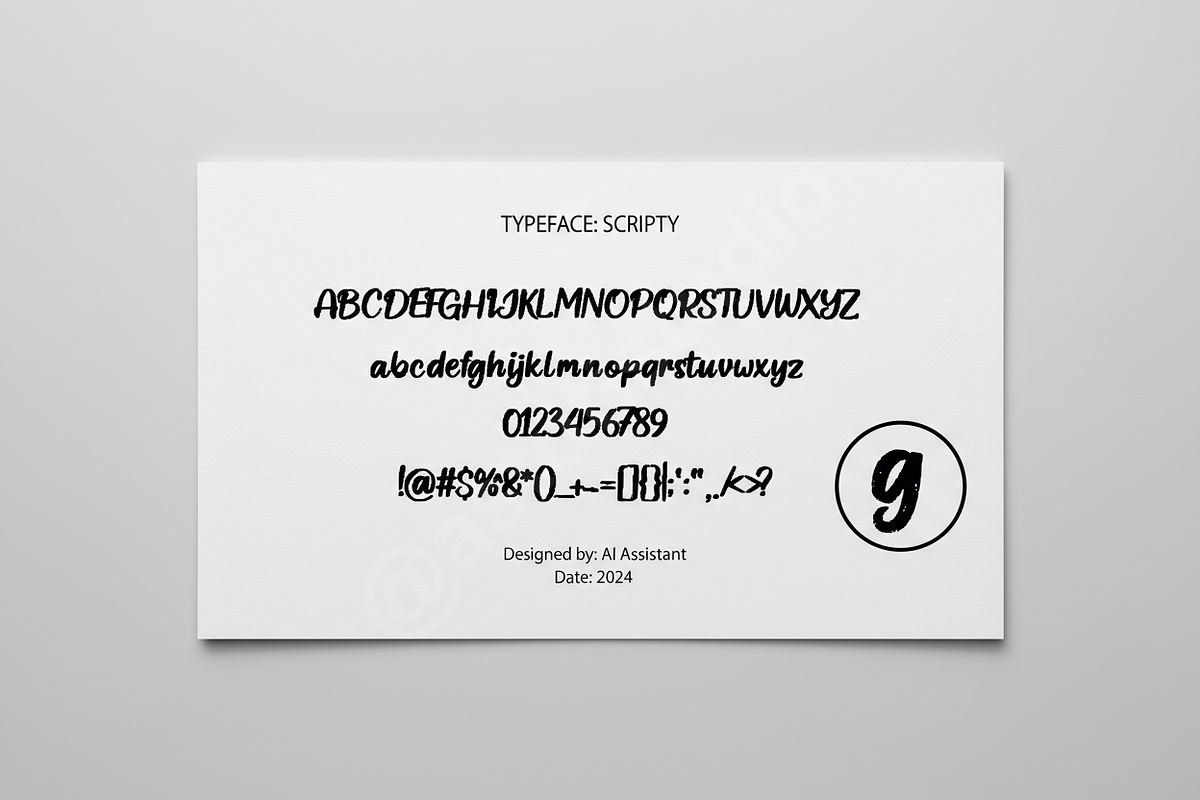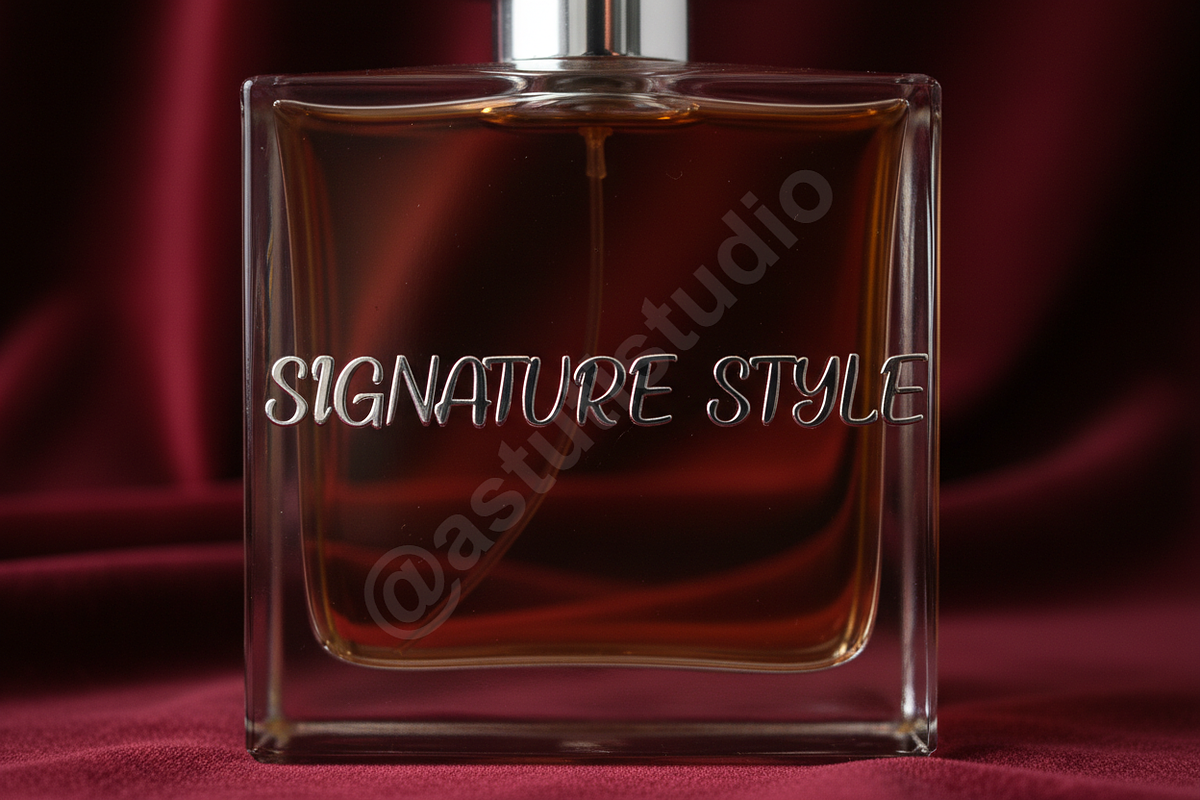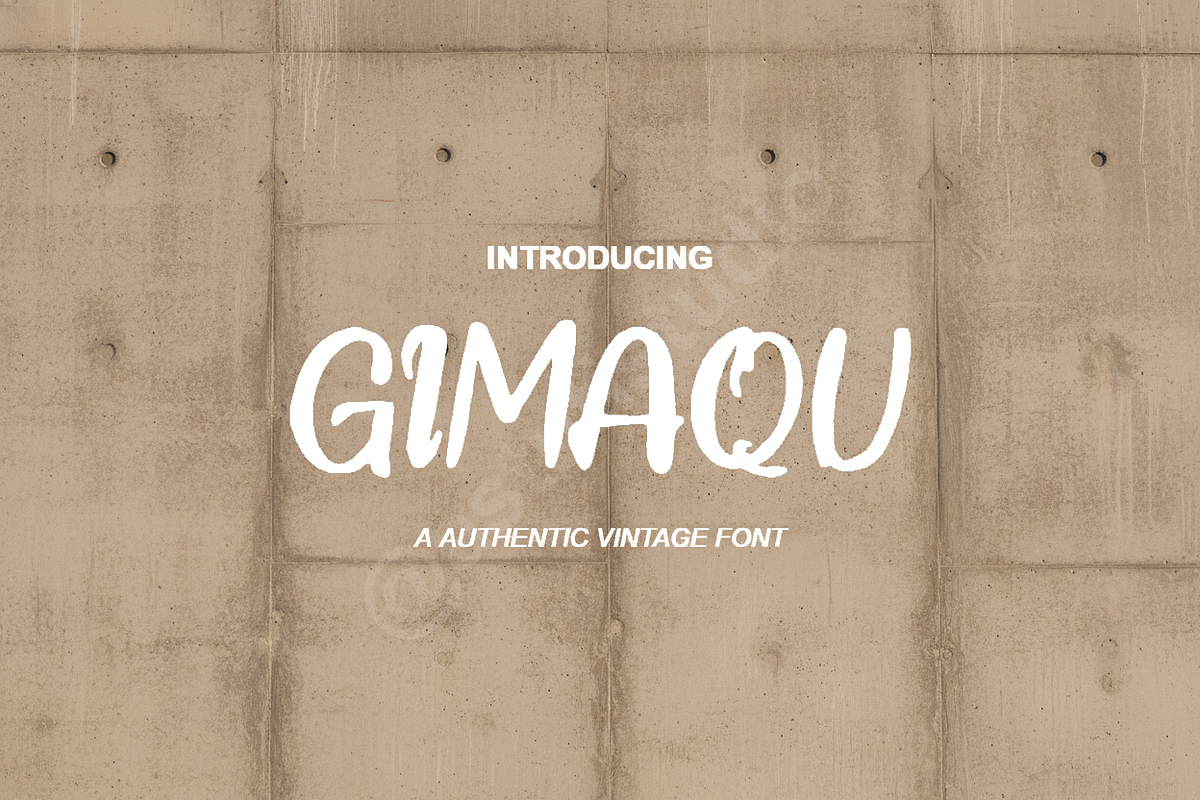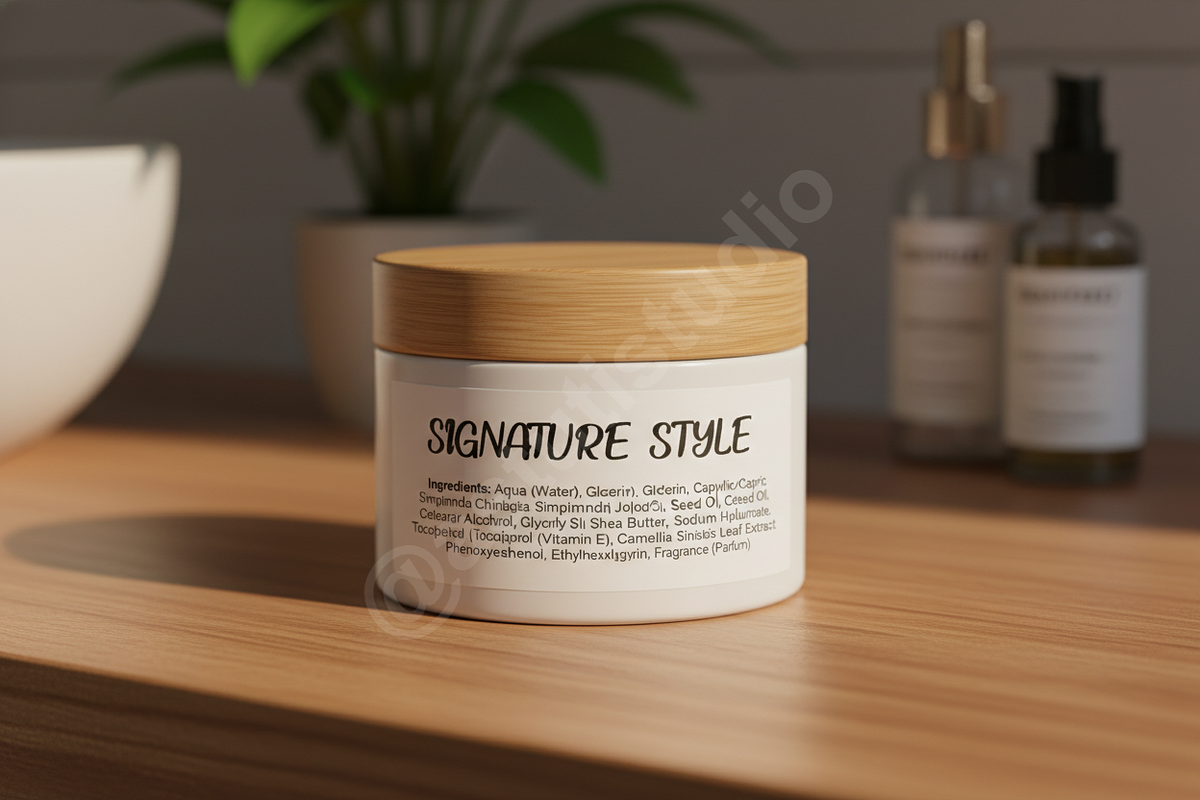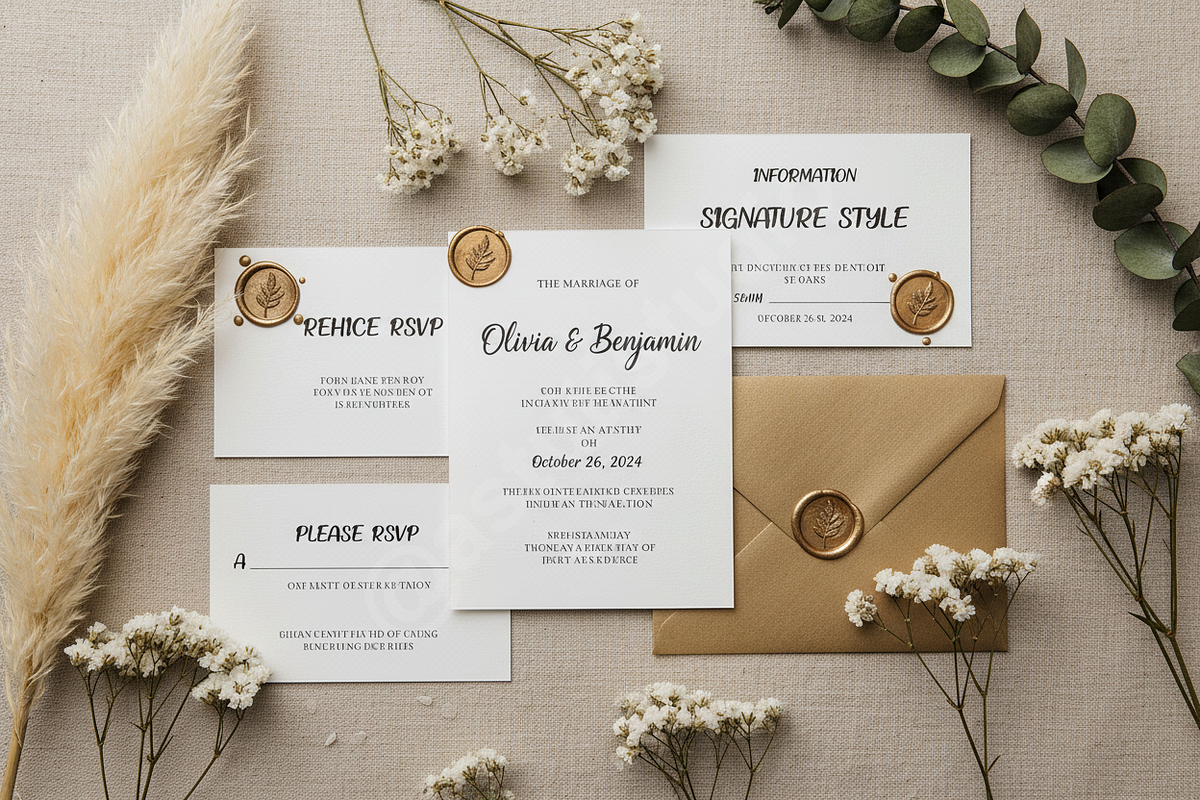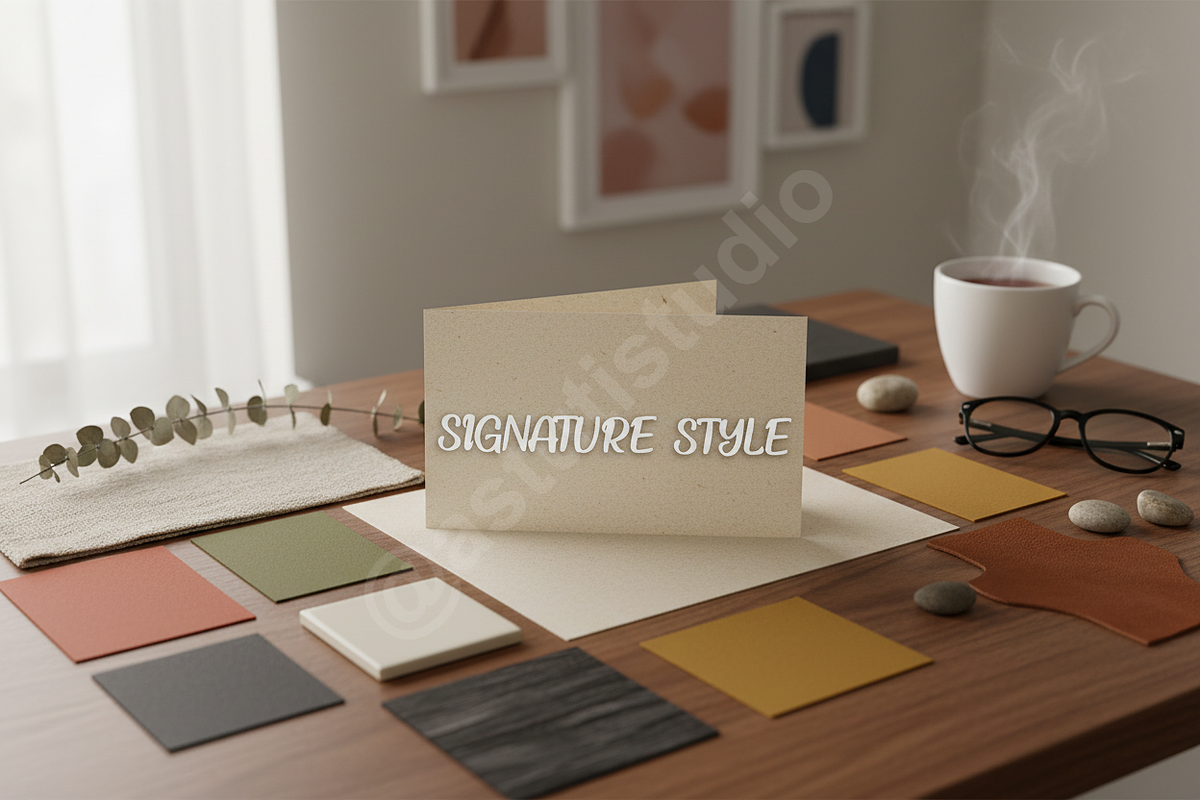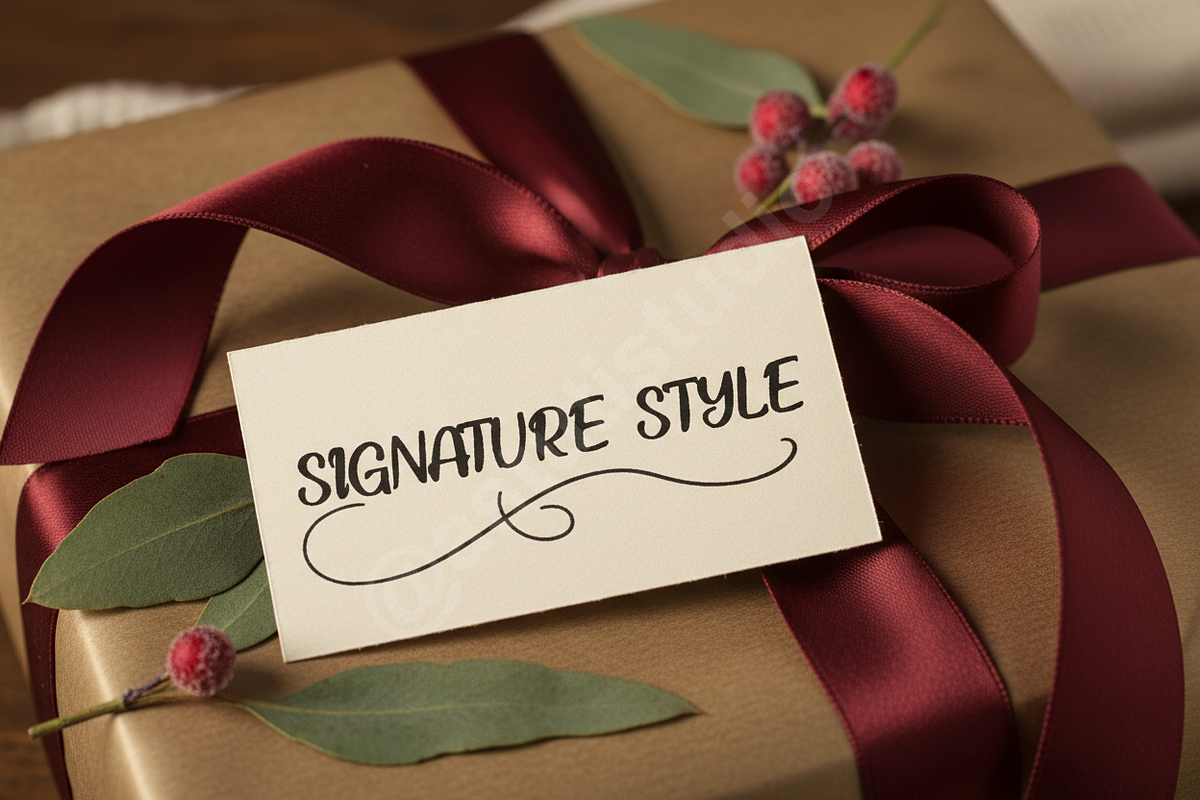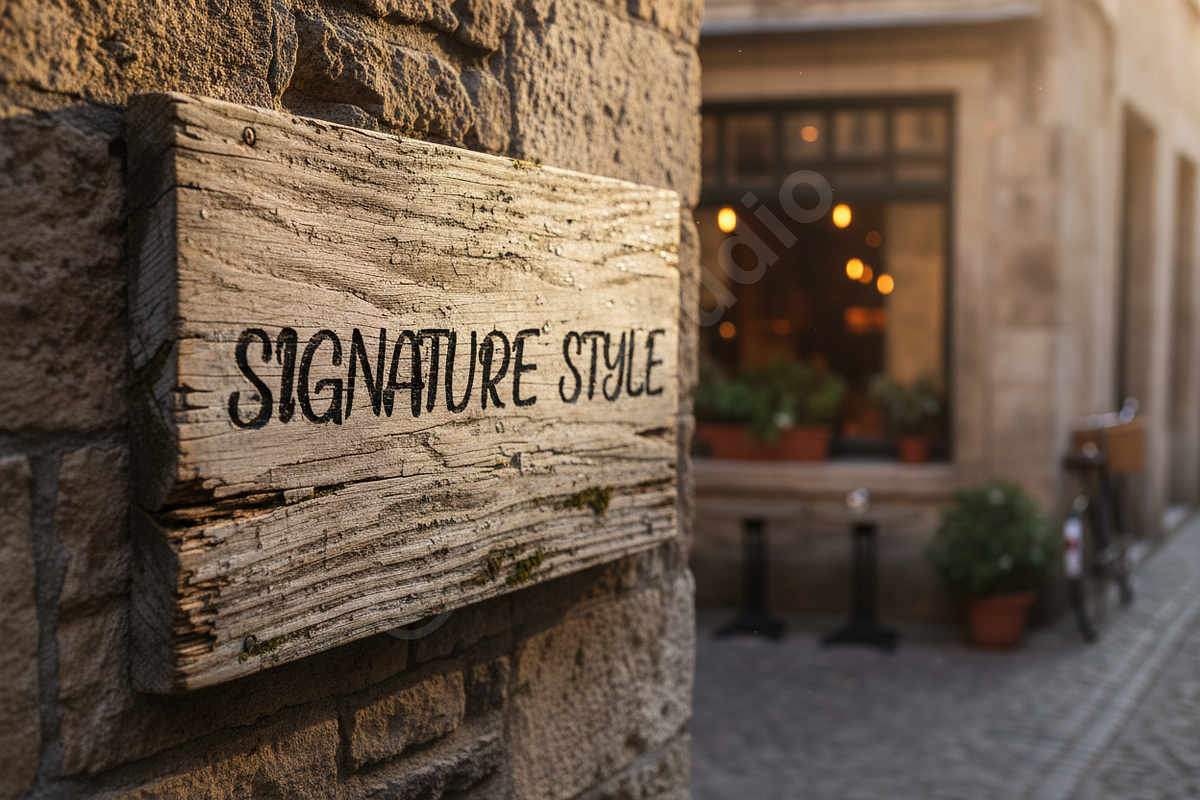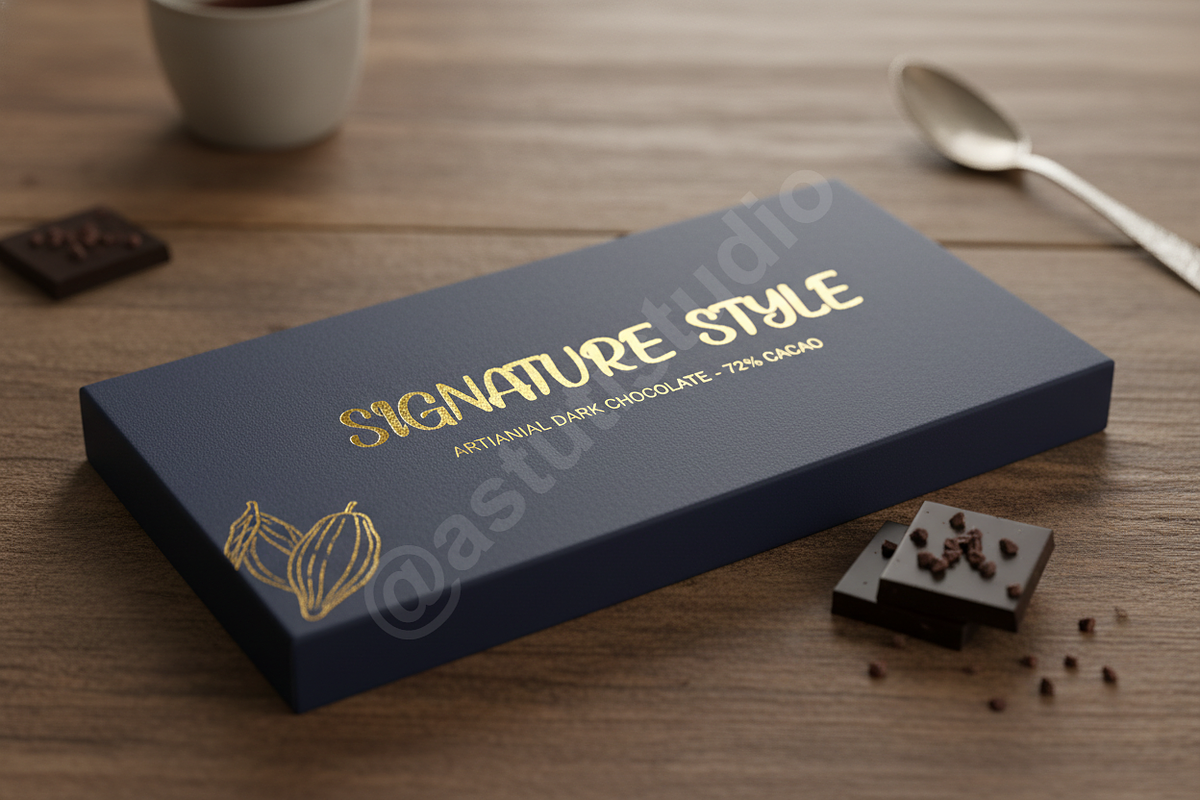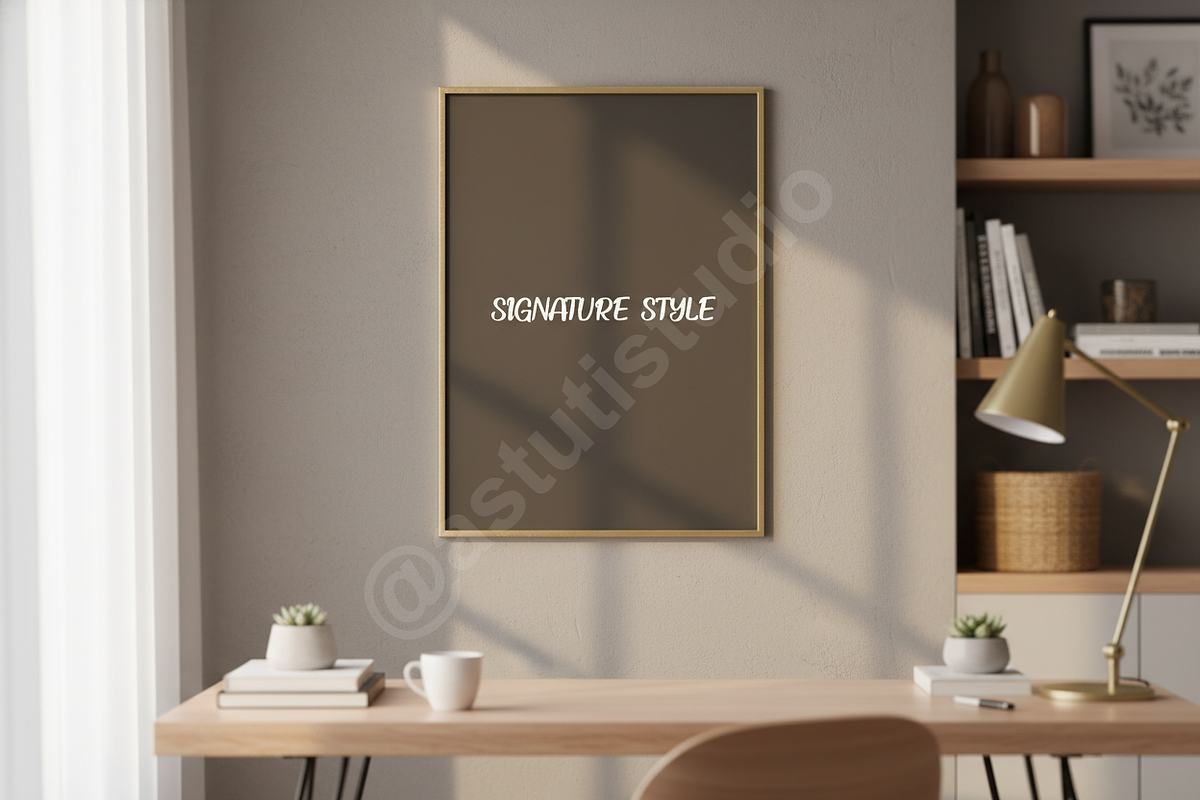
Gimaqu - Elegant Luxury Serif Font f
Introducing Gimaqu, a sophisticated serif font meticulously crafted to embody luxury and timeless elegance. Designed for high-end creative projects, Gimaqu brings an unparalleled sense of refinement to any design. Its graceful curves and precise lines make it the ideal choice for luxury branding, editorial layouts, and impactful social media visuals, ensuring your message is delivered with distinction and style.
- Elegant Serif Design: A classic yet modern aesthetic that exudes sophistication.
- Versatile Application: Perfect for logos, branding, headlines, packaging, and more.
- Comprehensive Character Set: Includes uppercase, lowercase, numbers, punctuation, and symbols.
- Multilingual Support: Extend your reach with broad language compatibility.
- Pristine Kerning & Spacing: Professionally adjusted for optimal readability and aesthetic appeal.